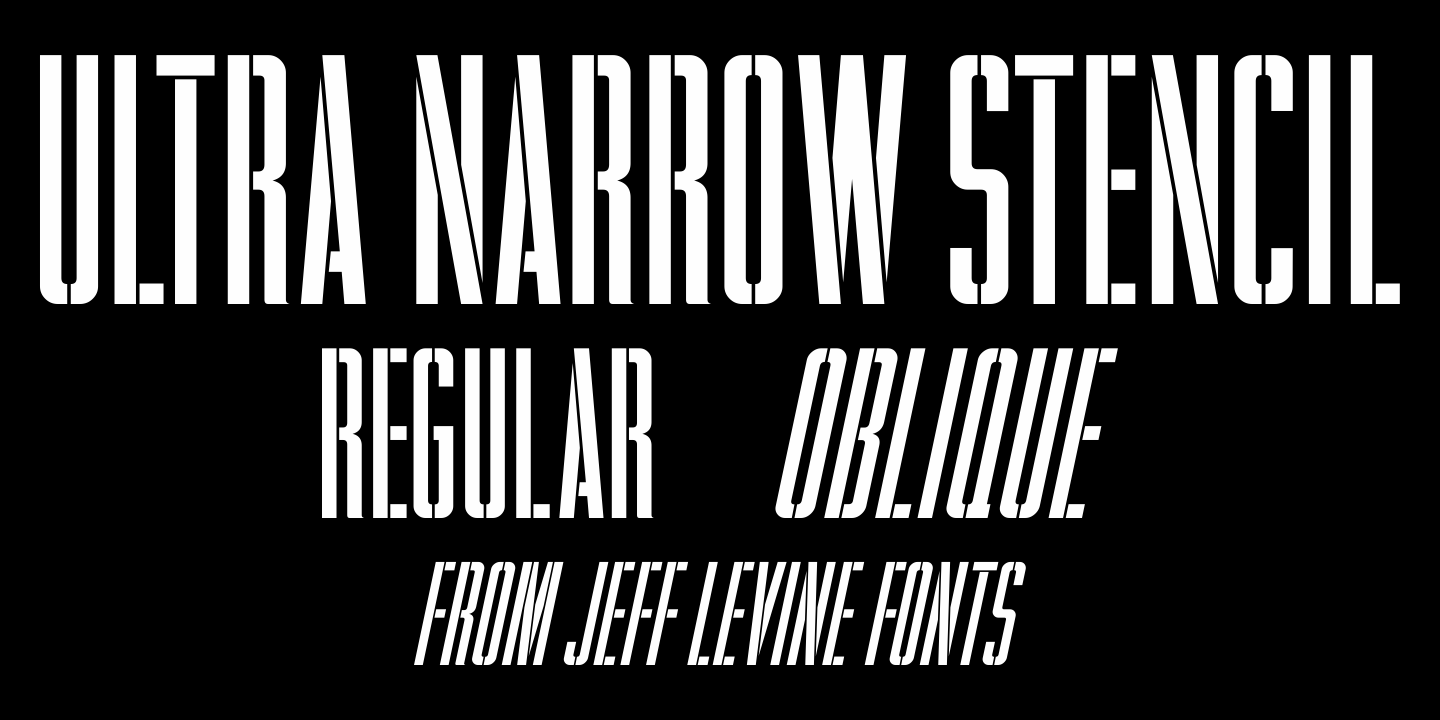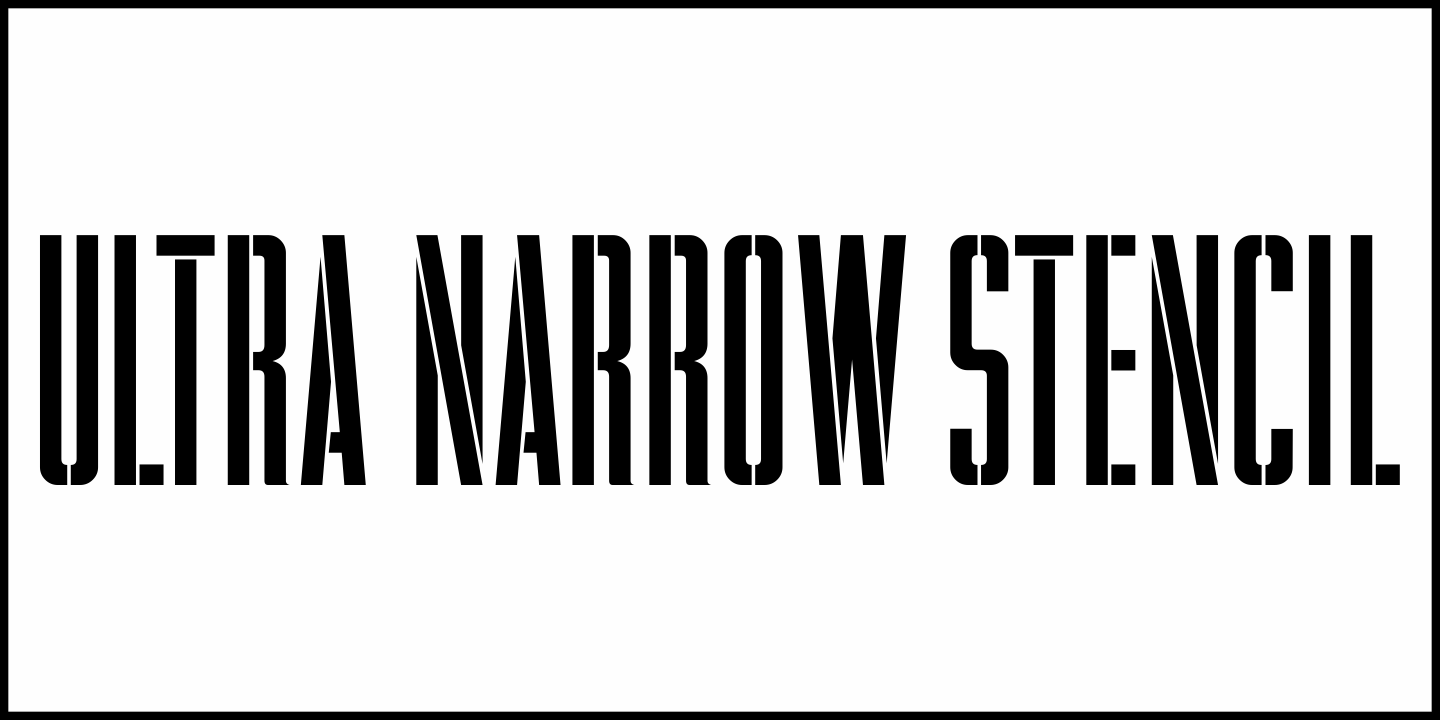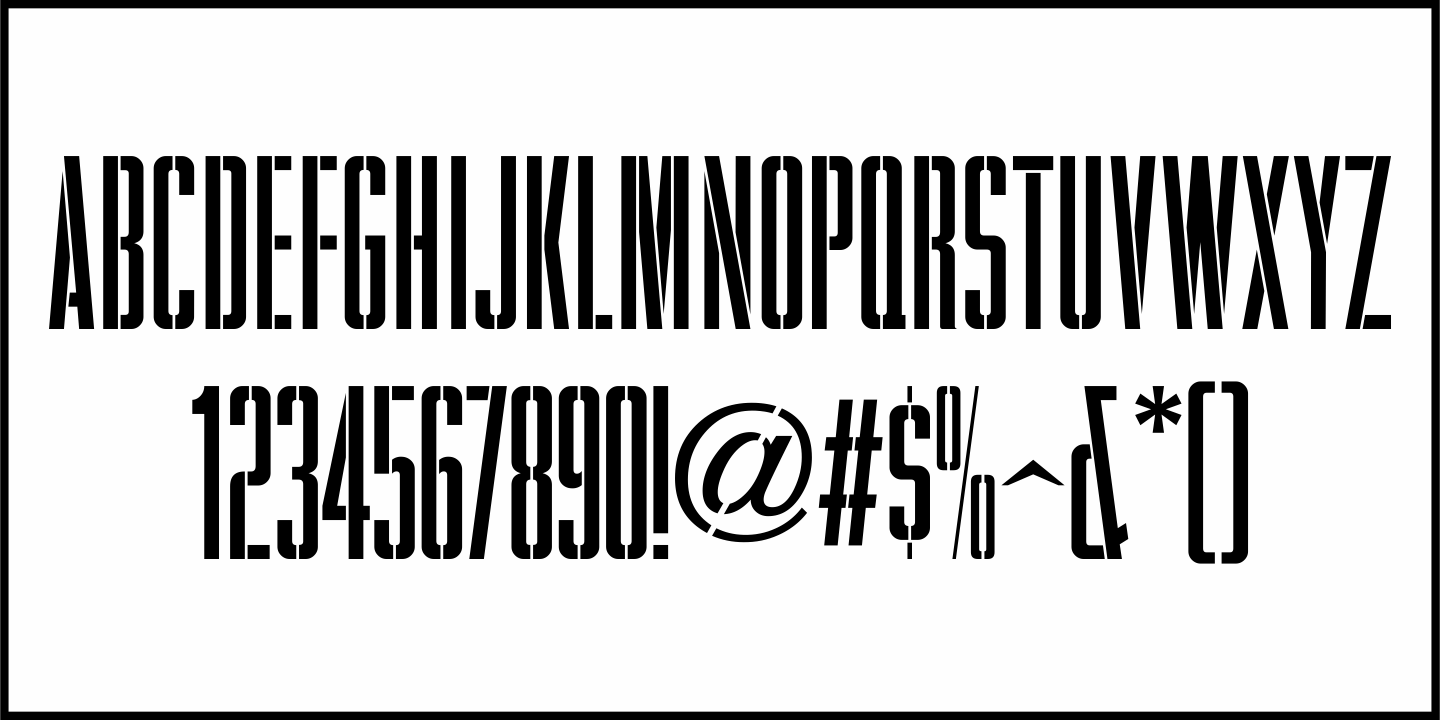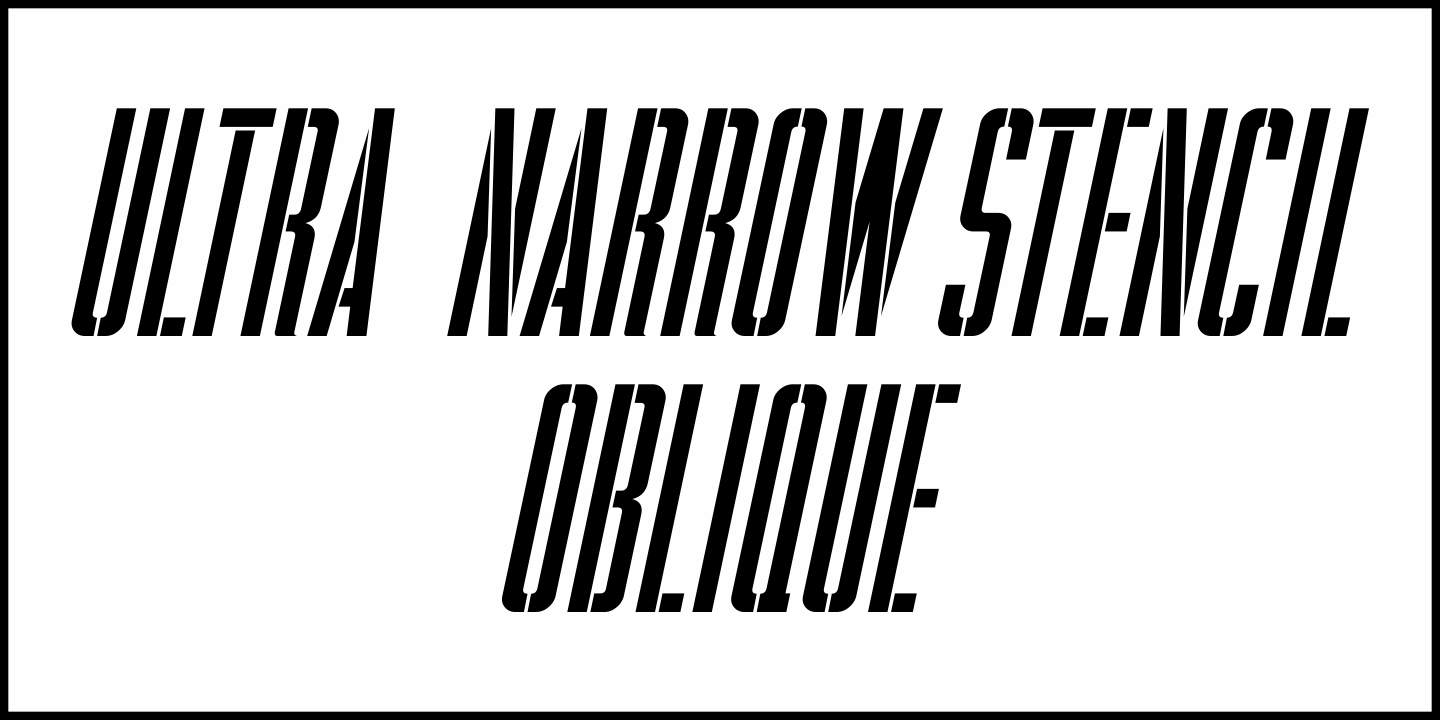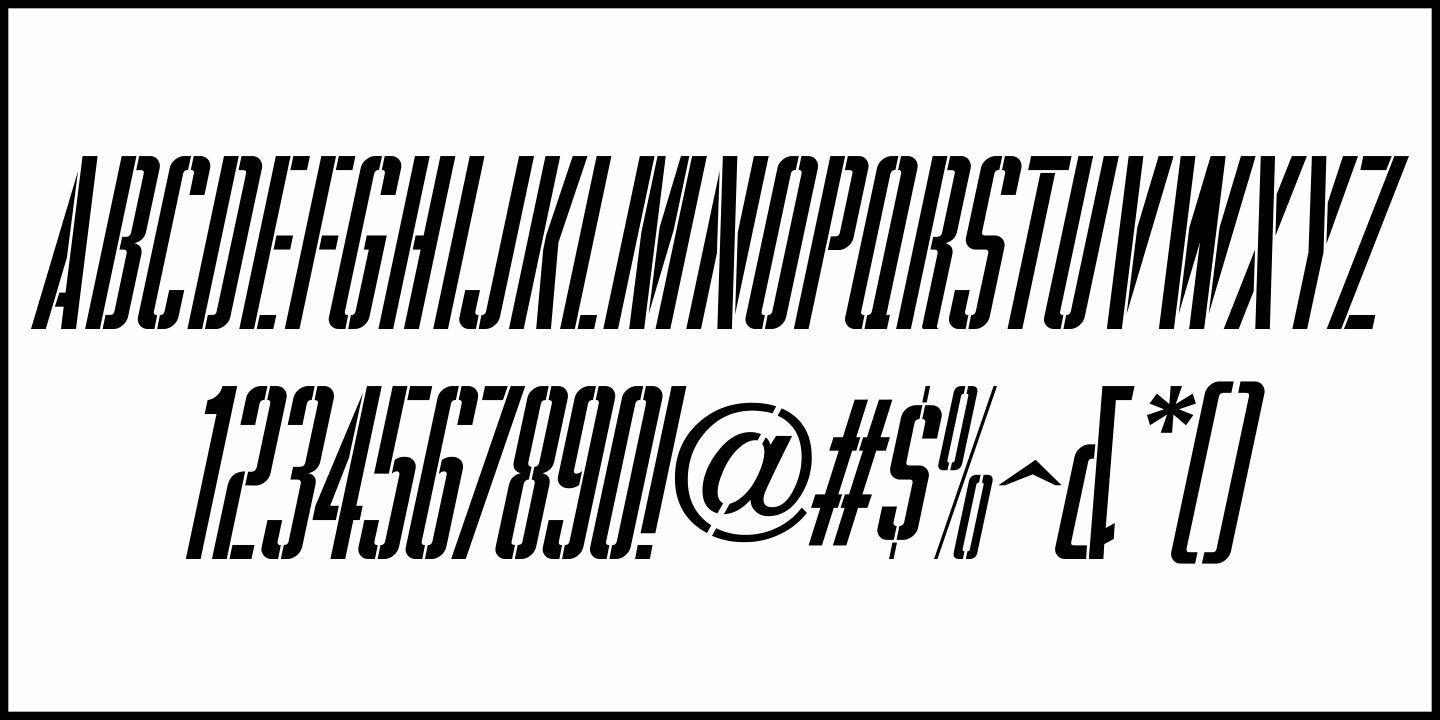
Ultra Narrow Stencil
In the April 15, 1952 issue of Motion Picture Daily there is an ad for color printing, and the main headline was hand lettered in an extra condensed sans serif stencil style.
This is now available as Ultra Narrow Stencil JNL, and is available in both regular and oblique versions.